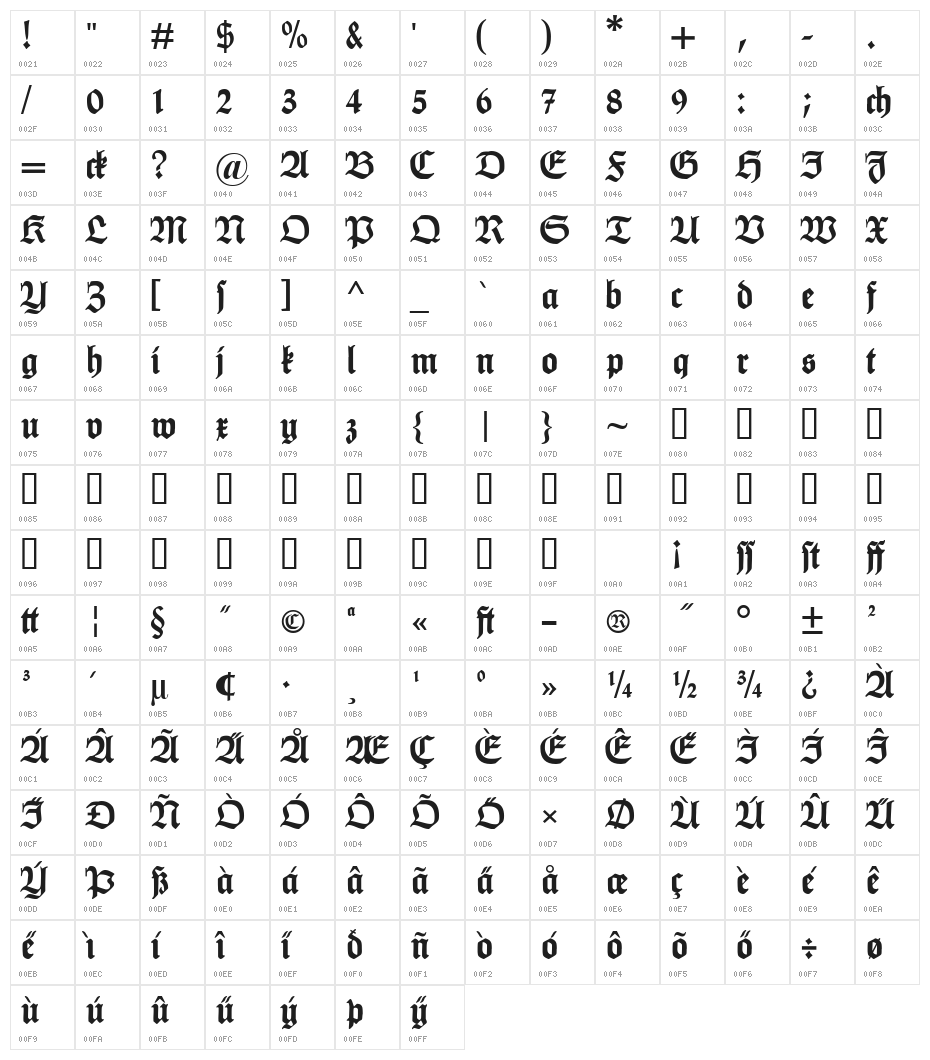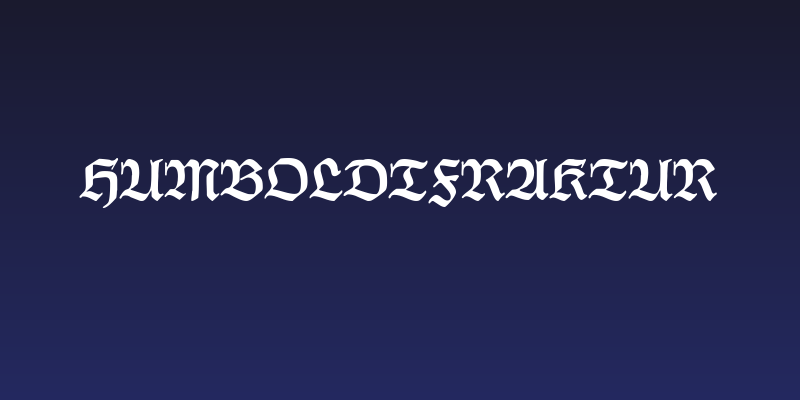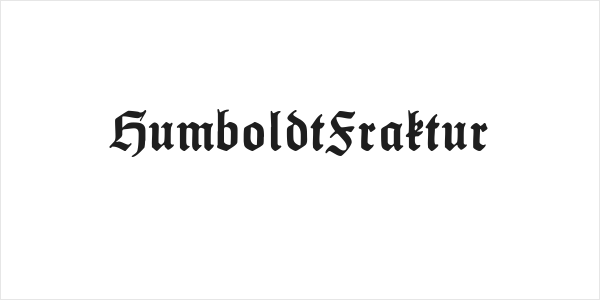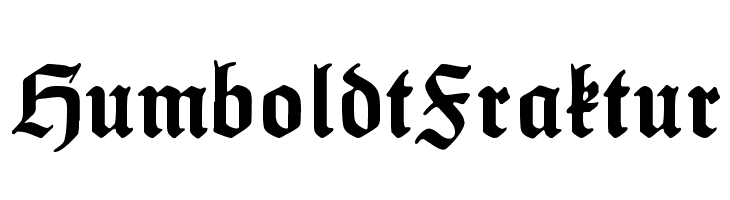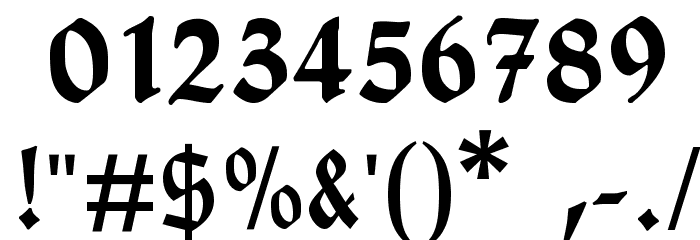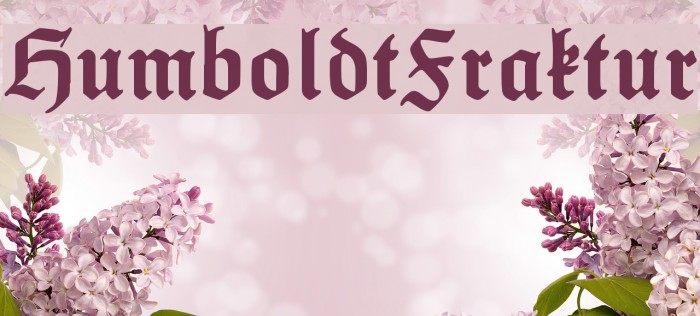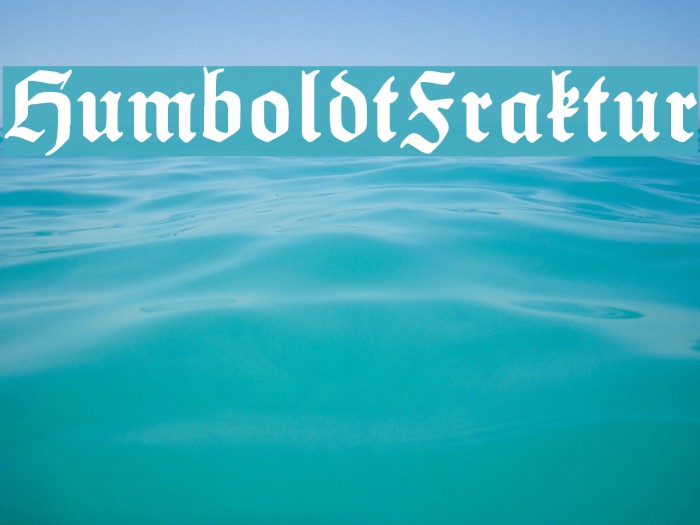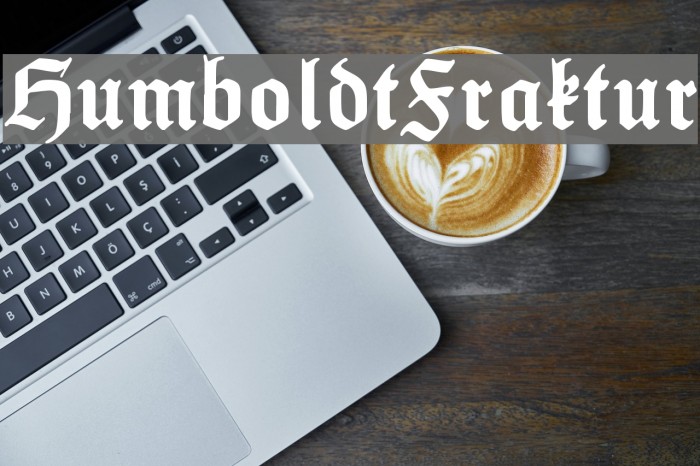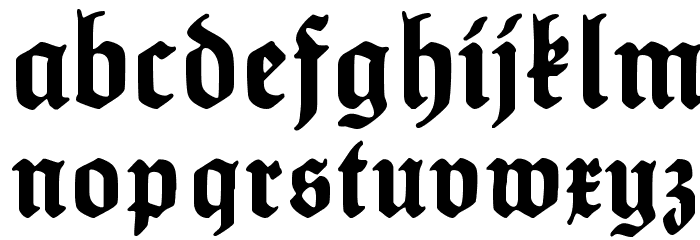
HumboldtFraktur Font
HumboldtFraktur Description
This font features a traditional blackletter style, characterized by its intricate and ornate design. The letters have a distinct medieval appearance, with sharp, angular lines and decorative flourishes that give it a historic and formal look. The uppercase letters are bold and commanding, while the lowercase letters maintain the same level of detail and complexity. The numbers and special characters are consistent with the overall style, adding to the font's cohesive aesthetic. This typeface is reminiscent of old manuscripts and is often associated with Gothic or Fraktur styles.
| Overall Style | Vintage |
| Use Case | Logos, Headlines, Decorative purposes |
| Proposed Projects | Ideal for projects requiring a medieval or Gothic aesthetic, such as historical documents, themed event invitations, or branding for vintage products. |